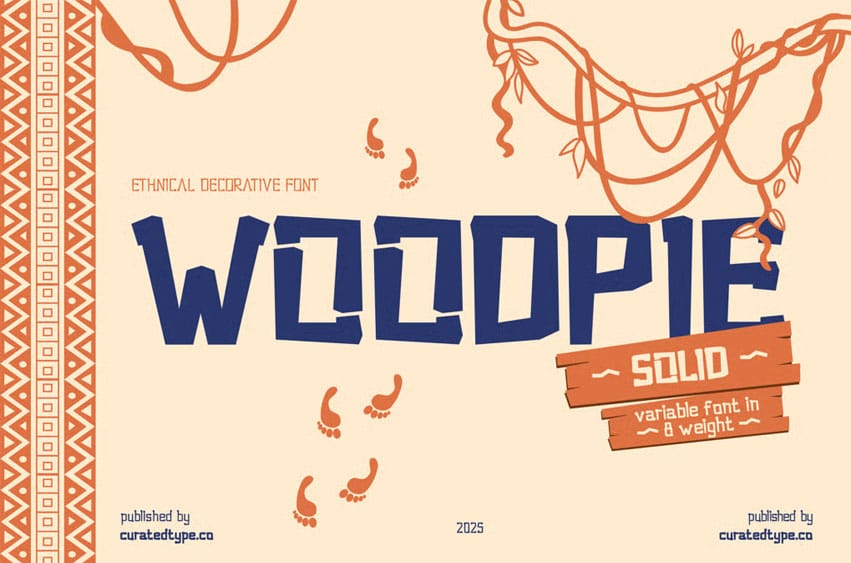
Woodpie Solid Font is a bold, angular typeface that thrives on sharp geometry and unapologetic presence. Its heavy strokes and jagged edges create a sense of raw energy, making it perfect for projects that demand attention and confidence. Each character feels carved rather than drawn, giving the font a handcrafted yet futuristic edge that bridges tradition and modernity.
Designed for impact, Woodpie Solid works beautifully in logos, posters, headlines, and branding where clarity and strength are essential. Its unique rhythm of sharp cuts and solid forms ensures that no message goes unnoticed. Whether used in digital layouts, merchandise, or editorial spreads, this font delivers a striking visual identity that feels both artistic and commanding.